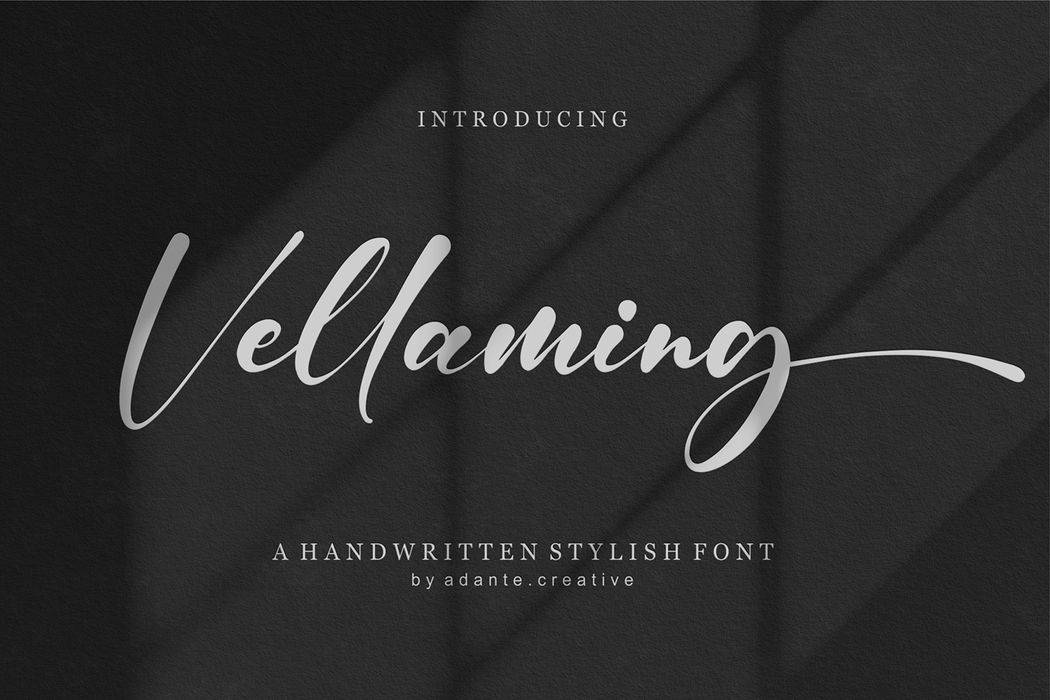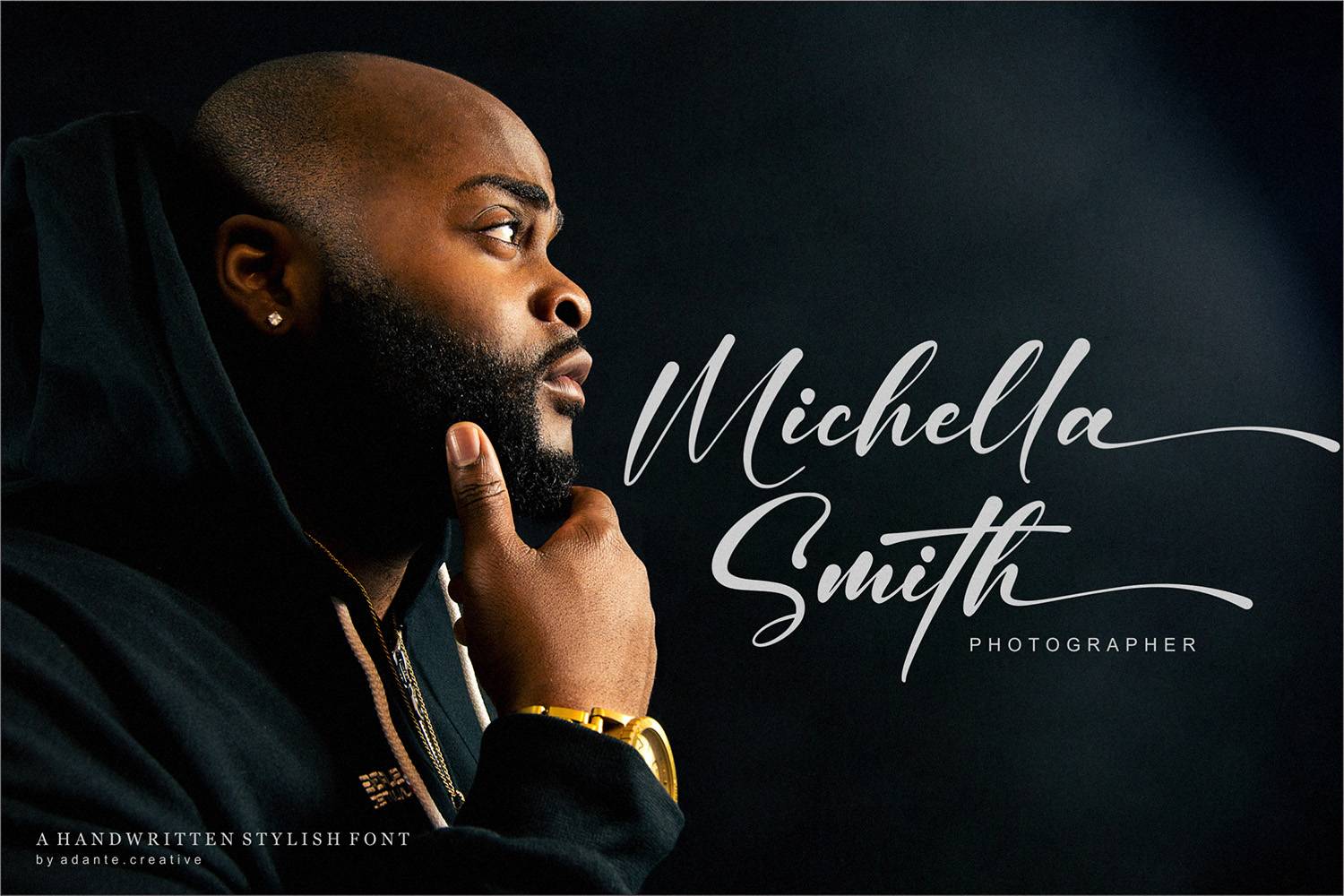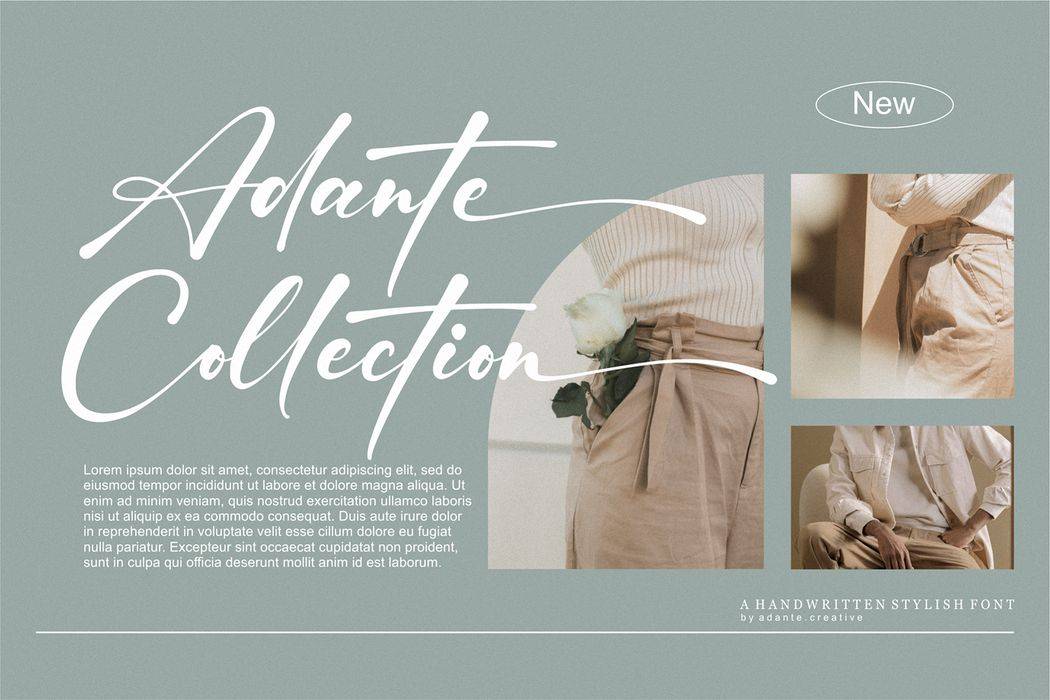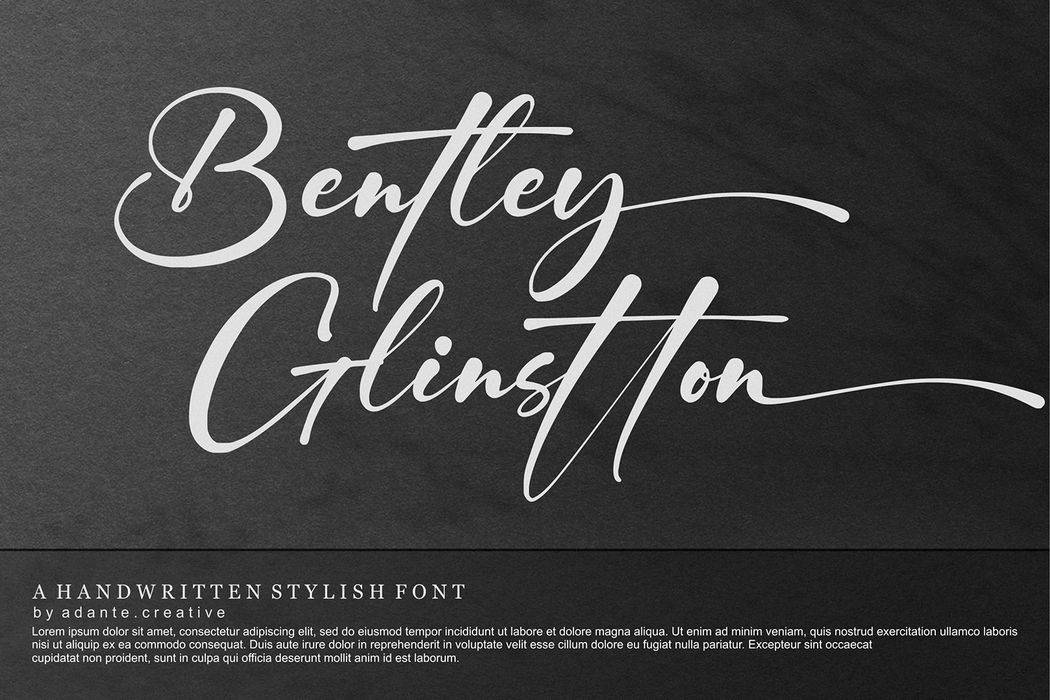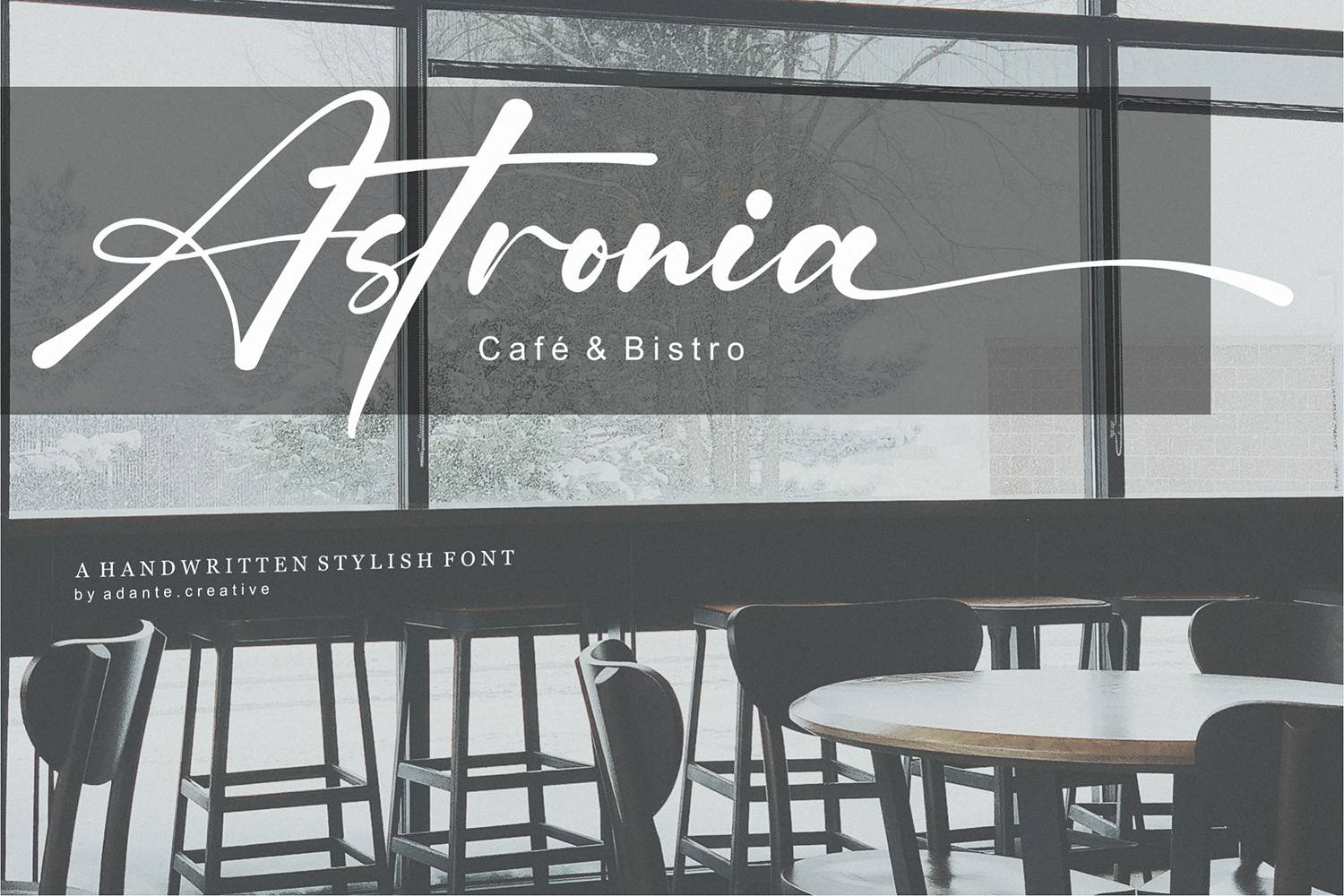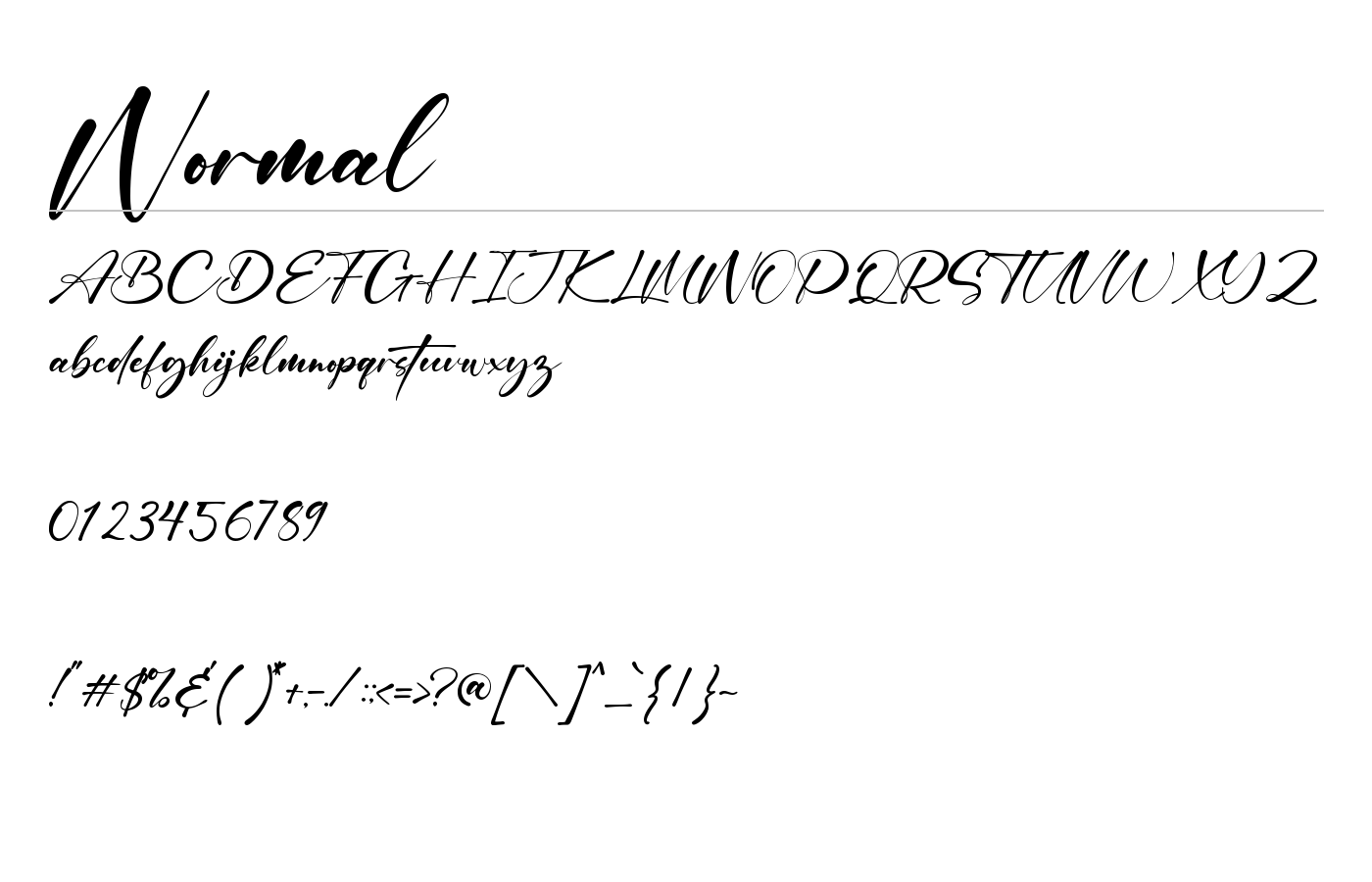
Vellaming is an elegant script font that combines fluid, calligraphic strokes with a modern flair, featuring graceful, slightly condensed letterforms and a high contrast between thick and thin lines. Its stylish, handwritten appearance makes it perfect for sophisticated branding, invitations, and fashion-related projects where a refined yet personal touch is desired. This font works beautifully in logos and headlines, adding a sense of luxury and charm without sacrificing readability.
| Font family | Vellaming Font |
| Designer | Adante Creative |